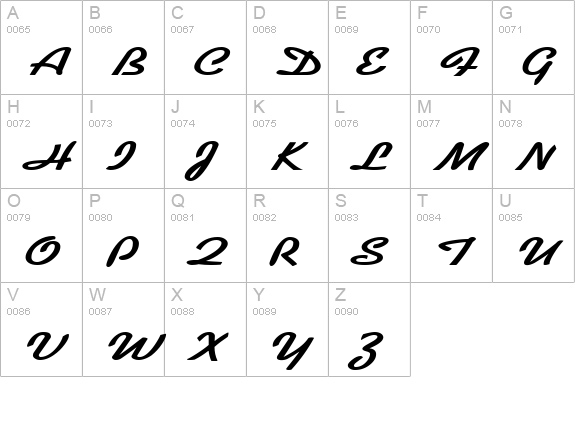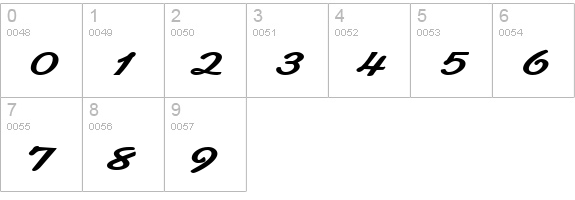
KoffeeWide Bold Font Details
KoffeeWide Bold is a strong, high-contrast variant in the KoffeeWide typeface family \xE2\x80\x94 well suited to headlines, attention-grabbing titles, and strong calls-to-action.
KoffeeWide Bold is a striking and versatile display font that exudes confidence and creativity. Its bold lines and wide spacing make it perfect for headlines, logos, and other design projects that require a strong and impactful presence. This font is sure to grab attention and leave a lasting impression. What's even better is that KoffeeWide Bold is completely free to download at FontsMarket.com. This means you can easily access this amazing font without any cost, making it a valuable addition to your font collection. Whether you're a designer, marketer, or simply someone who appreciates good typography, KoffeeWide Bold is a must-have font that will elevate your projects to the next level. Download it today and start creating with this bold and beautiful typeface!